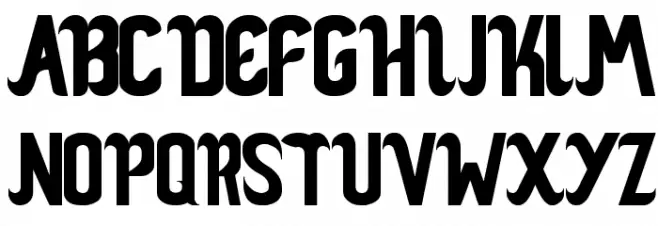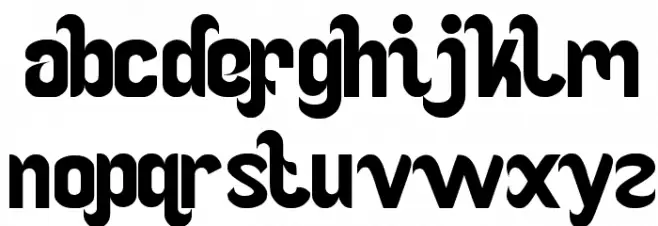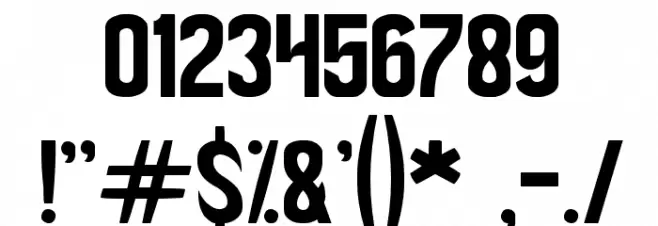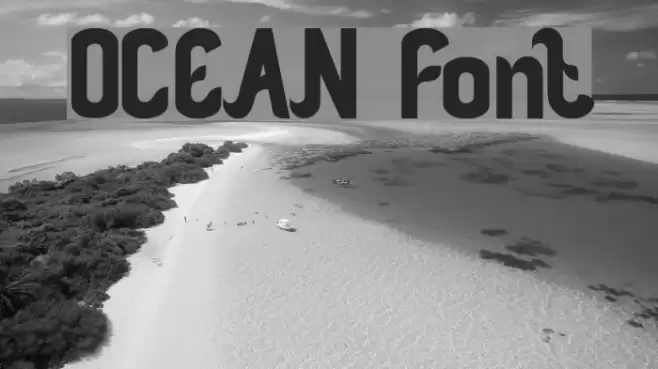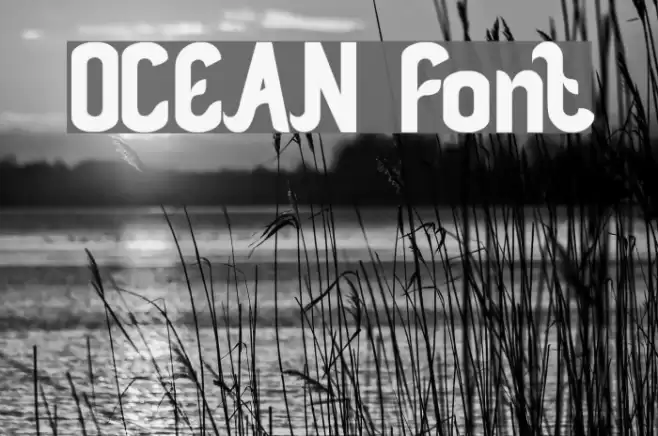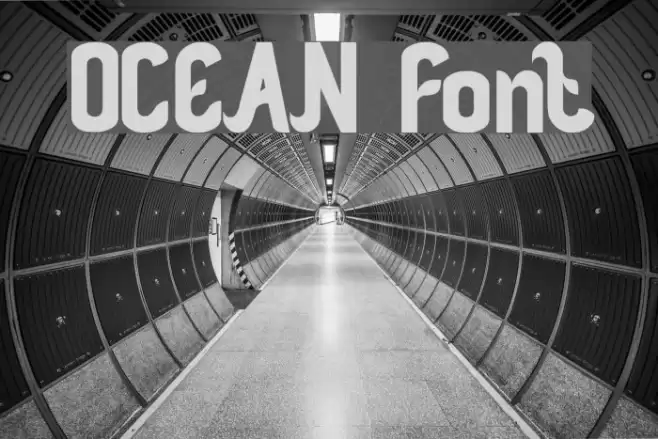
OCEAN Font
OCEAN Description
This font features a bold and playful style with thick, rounded strokes that give it a friendly and approachable appearance. The uppercase letters are uniform in height, while the lowercase letters maintain a consistent baseline with slightly exaggerated curves, adding to its whimsical nature. The numbers are bold and clear, ensuring readability. Special characters are well-integrated, maintaining the overall playful aesthetic. The font's design is reminiscent of retro styles, with a modern twist that makes it suitable for a variety of creative projects.
A bold, playful font with rounded strokes and a retro-modern vibe.
- Proposed Projects: Ideal for children's books, playful branding, posters, and creative advertising campaigns.
- Overall Style: Playful, Retro-Modern